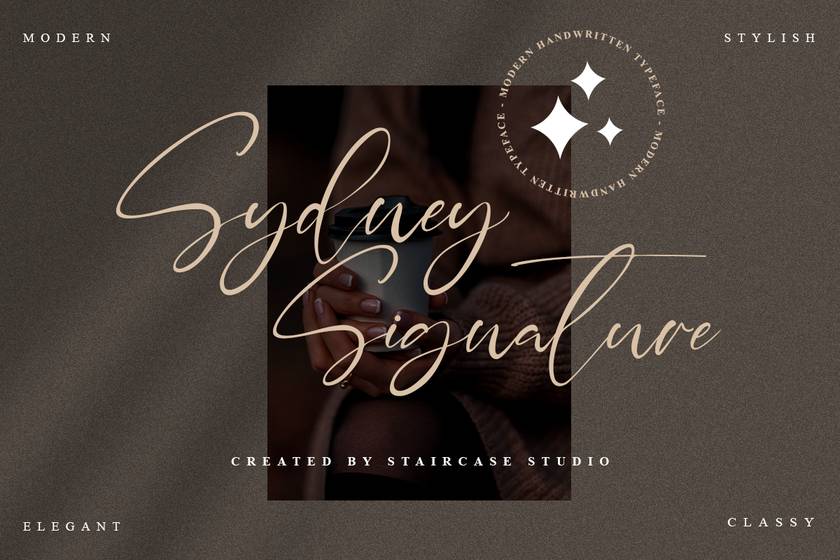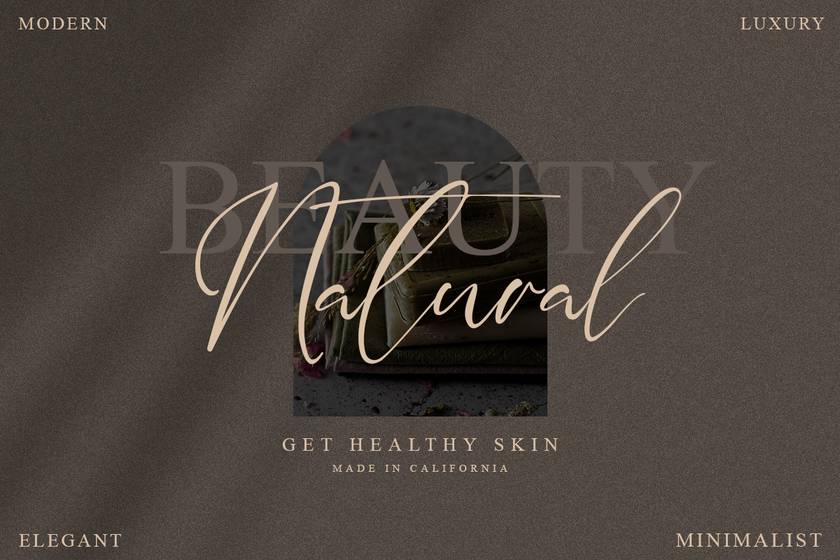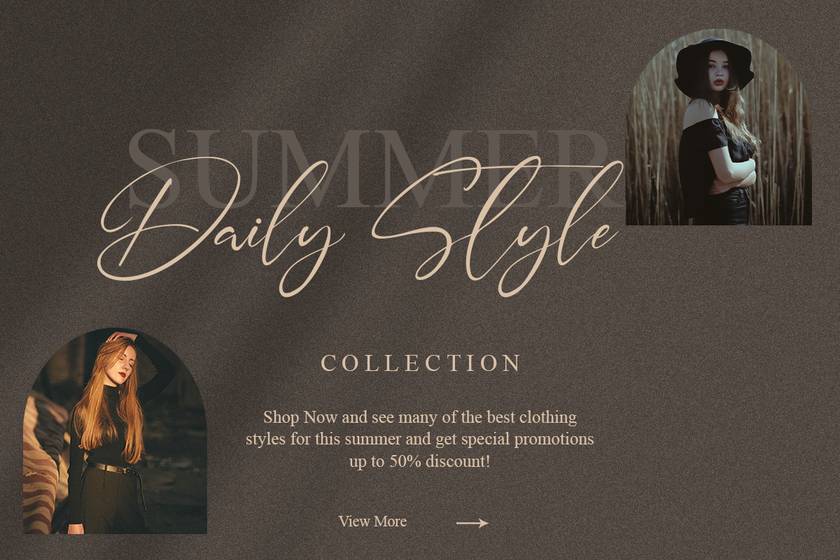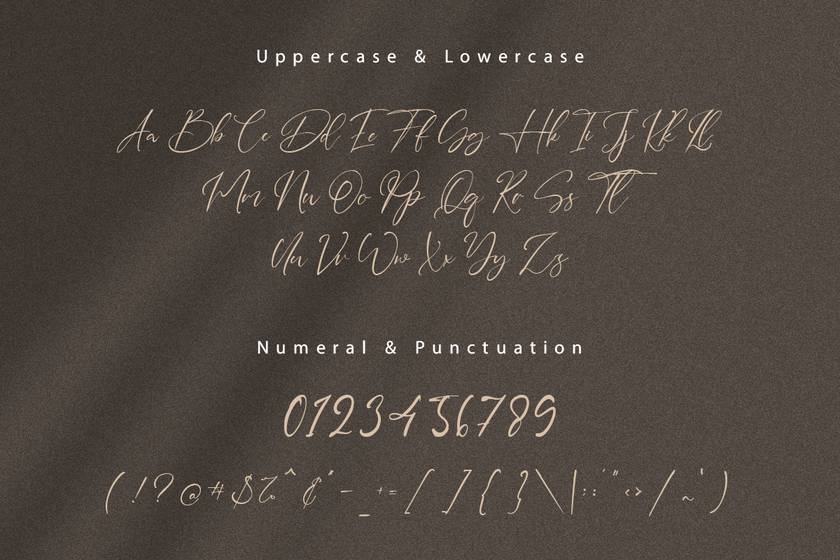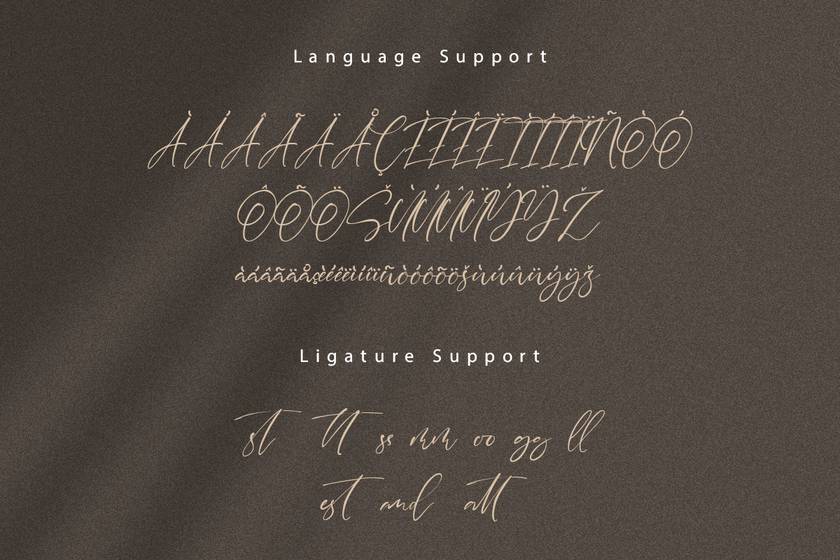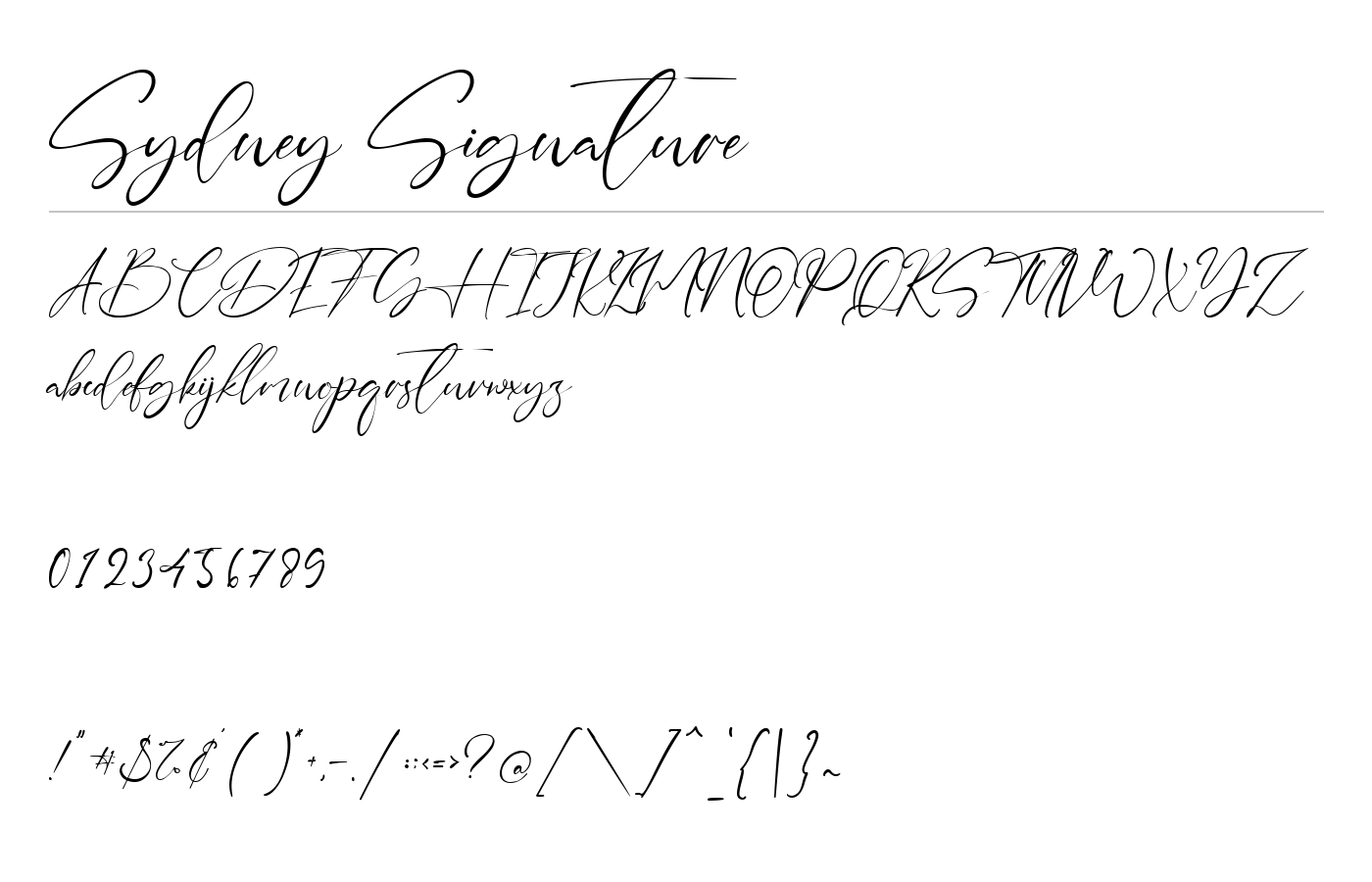
Sydney Signature is an elegant, thin script font with a delicate, handwritten style that captures the fluidity of natural handwriting. Its graceful, flowing strokes and tall, narrow letterforms give it a refined yet personal touch, making it ideal for luxury branding, wedding invitations, and stylish logos where a sophisticated, intimate feel is desired. This font’s airy, artistic character works beautifully in designs that want to convey elegance and individuality.
Sydney Signature Font
About Sydney Signature Font
| Font family | Sydney Signature Font |
| Designer | Staircase Studio |